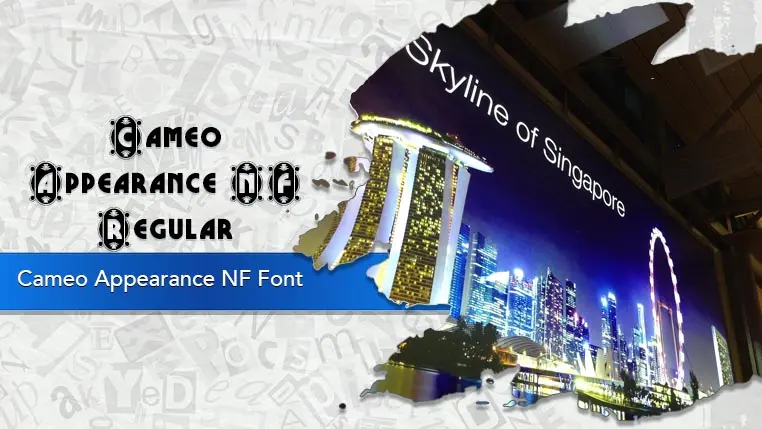
The Cameo Appearance NF font family may be ideal for you if you enjoy working on an artistic design project. The lively, expressive look of this typeface, which was created by Nick Curtis, makes it ideal for Headlines and Titles, Themed Designs. For impactful statements where the typography itself contributes significantly to the message. and other light-hearted visual projects.
Regular are the one primary font styles of the Cameo Appearance NF font family. You may build dynamic, visually appealing text layouts with the distinct flair that each style offers. With crisp, readable lines and a relaxed tone.